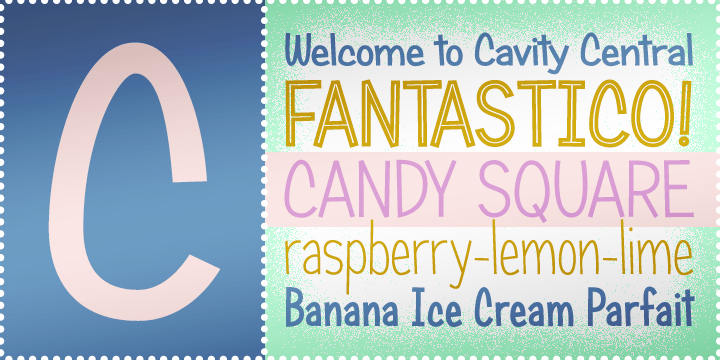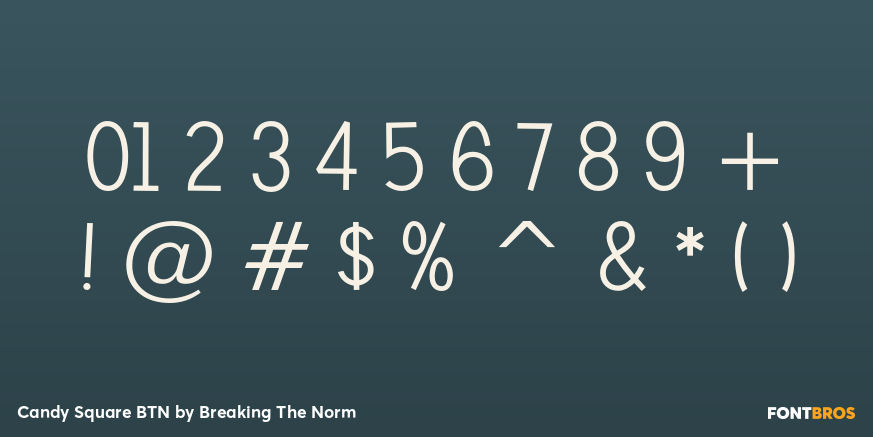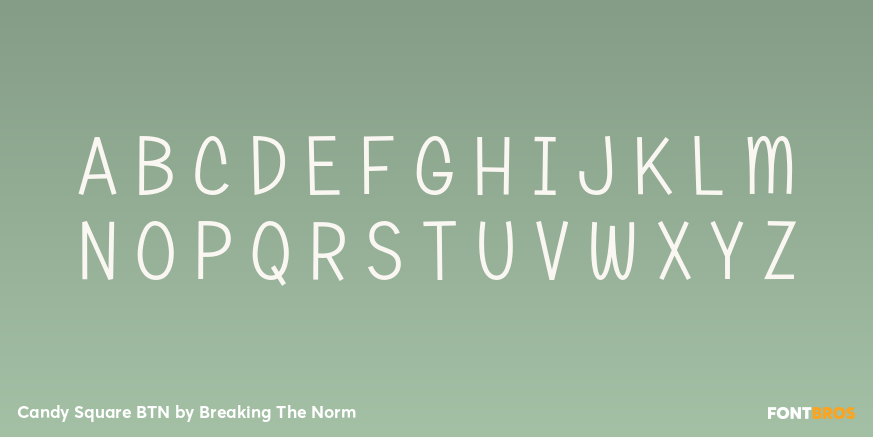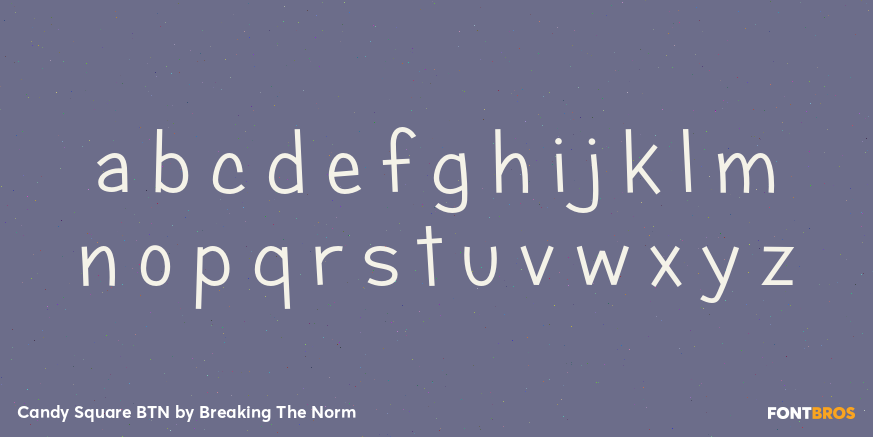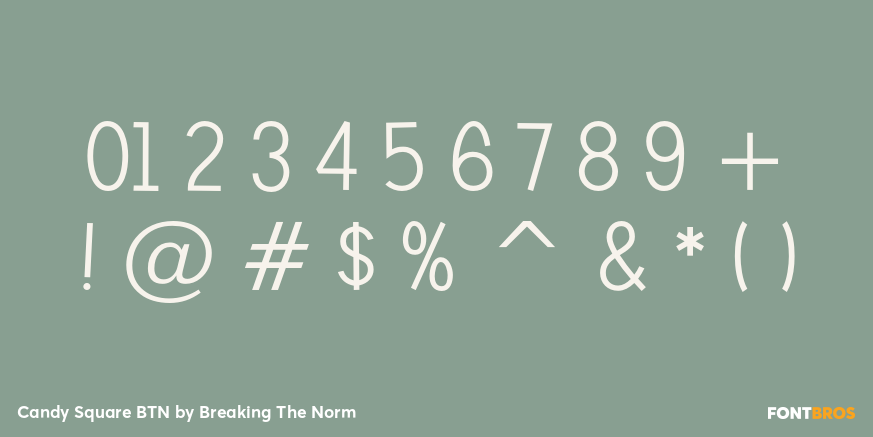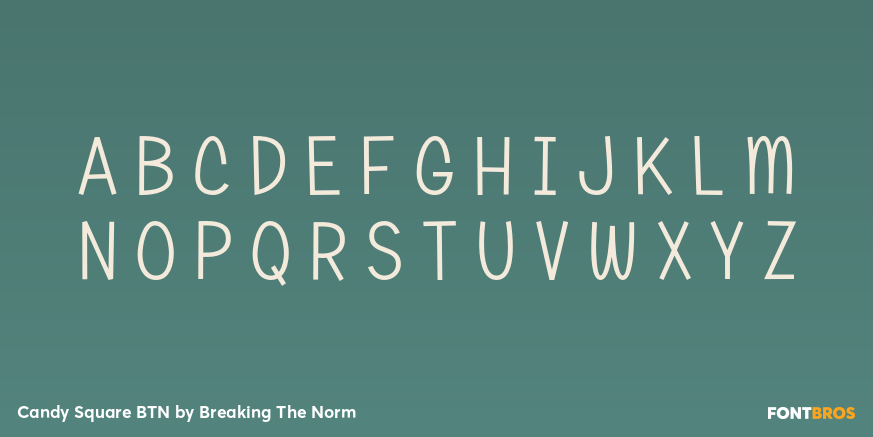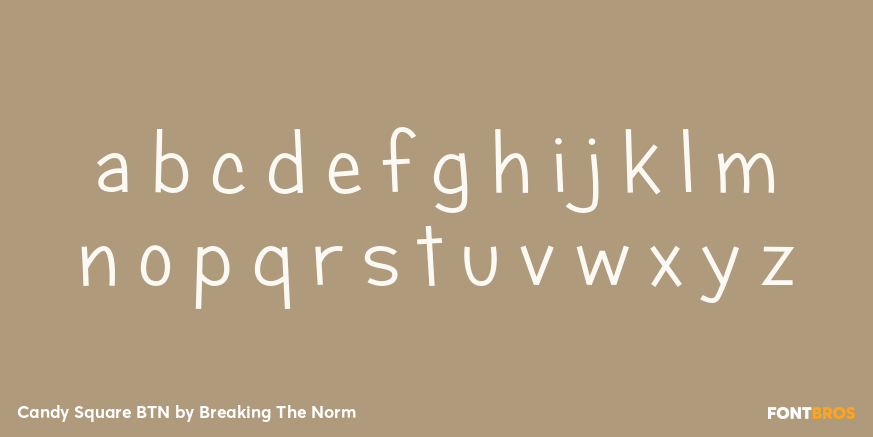
Candy Square BTN
Font Family by Breaking The Norm
Candy Square BTN is a bold display family inspired by vintage confectionery packaging and shaped with a crisp, structured personality. As part of the classic Candy family, it blends nostalgic packaging charm with a cleaner, more modern edge, giving it a distinctive retro-meets-contemporary appeal. Its squarer construction makes it especially effective for packaging, branding, signage, posters, children's products, food graphics, and playful editorial work. With standard and condensed weights plus a Striped style for added visual flavor, Candy Square BTN offers flexible display options that stay lively, readable, and full of character even at smaller sizes.